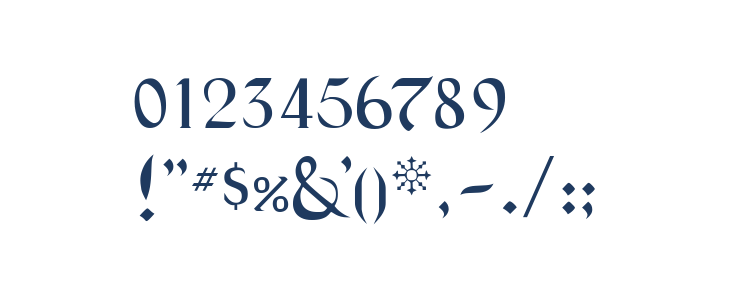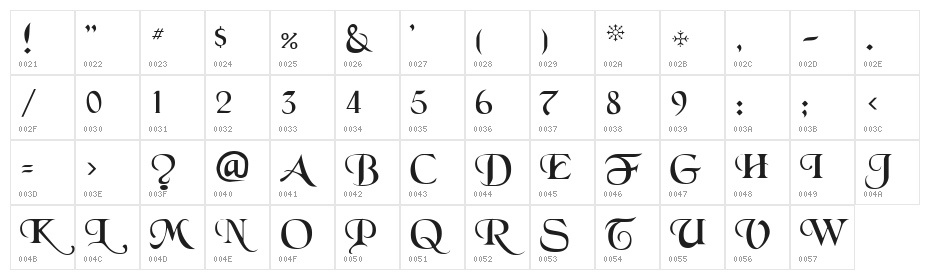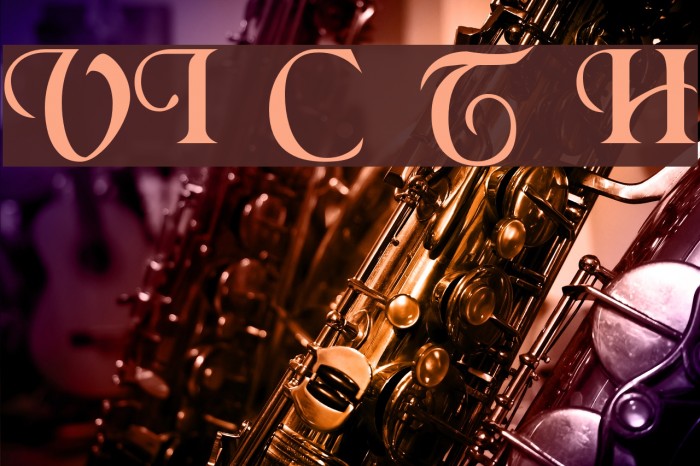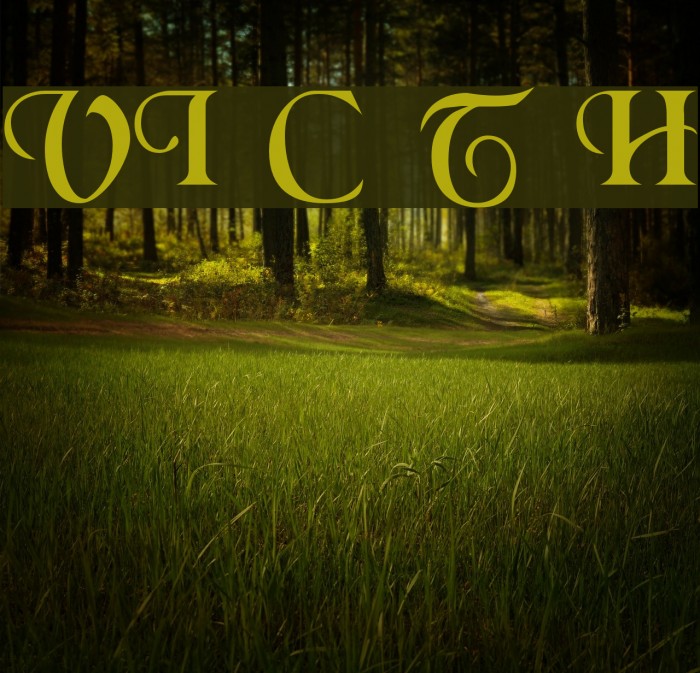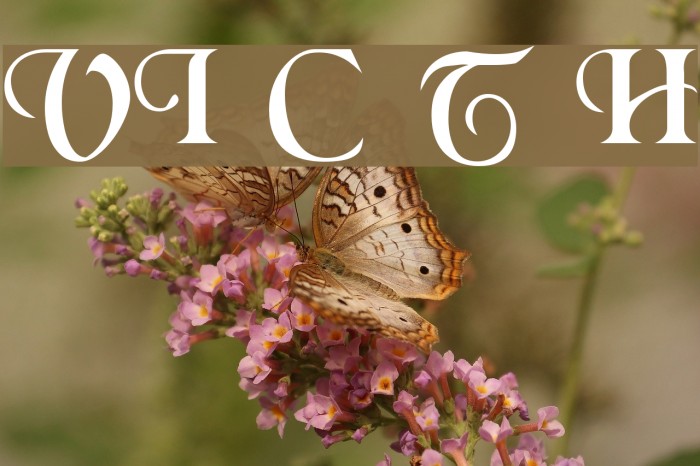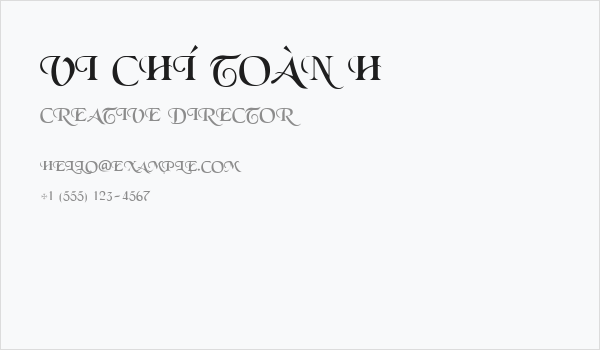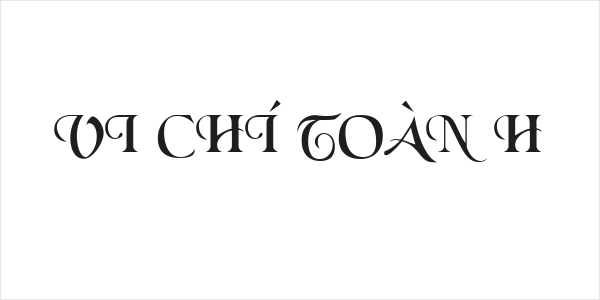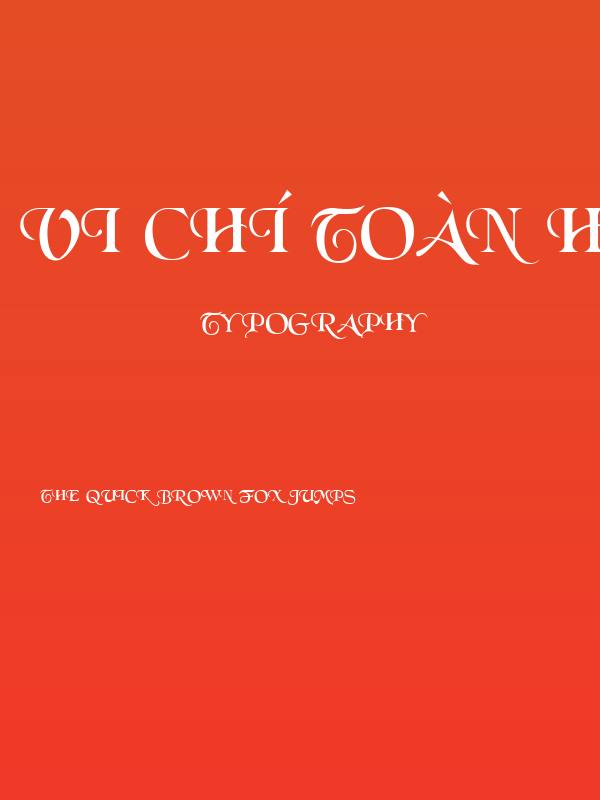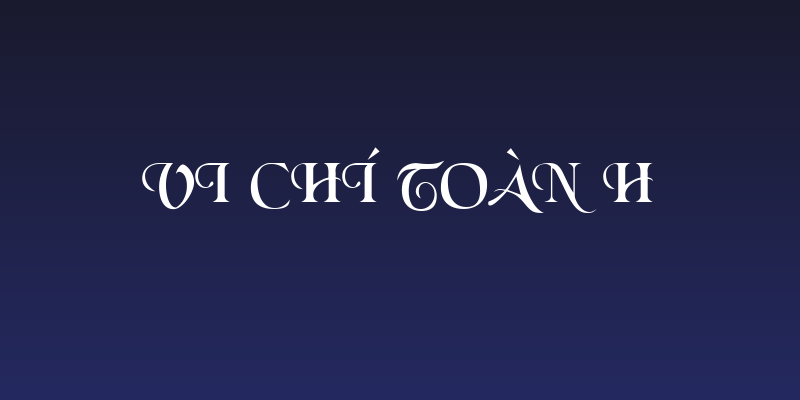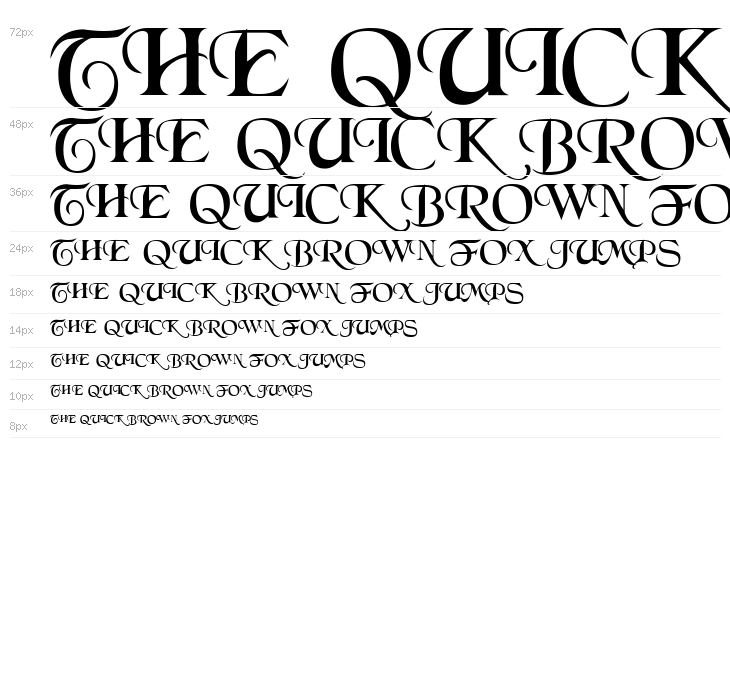
VI Chí Toàn H Font
VI Chí Toàn H Description
This font features a dramatic and elegant style, characterized by its flowing, calligraphic strokes and high contrast between thick and thin lines. The uppercase letters are ornate, with decorative flourishes that add a sense of sophistication and grandeur. The lowercase letters maintain a consistent style, complementing the uppercase with their own subtle curves and embellishments. The numerals are distinct and bold, ensuring readability while maintaining the overall aesthetic. Special characters are designed with the same attention to detail, featuring unique and artistic elements that enhance the font's visual appeal.
| Use Case | Logos, Invitations, Headlines |
| Proposed Projects | Ideal for wedding invitations, luxury branding, formal event programs, and high-end product packaging. |